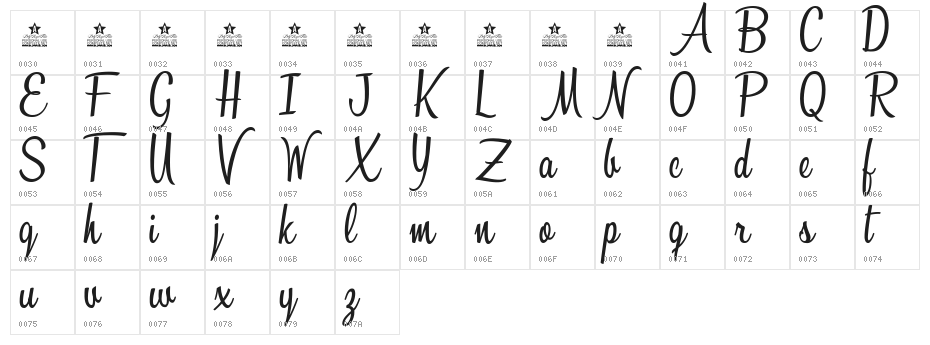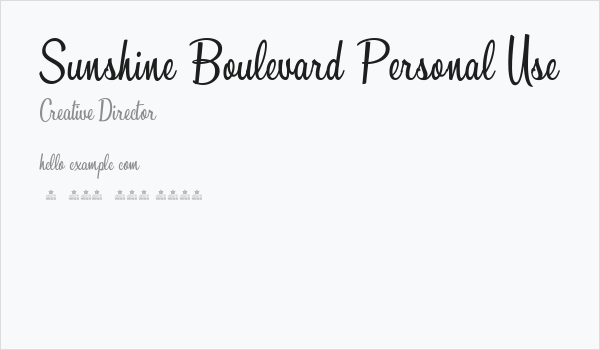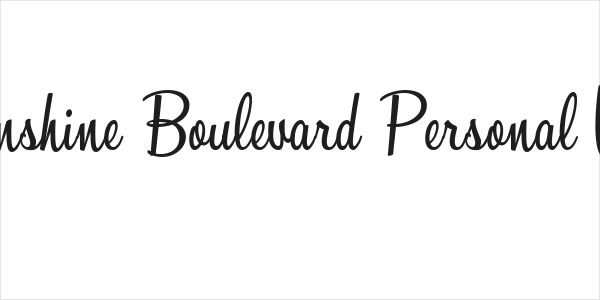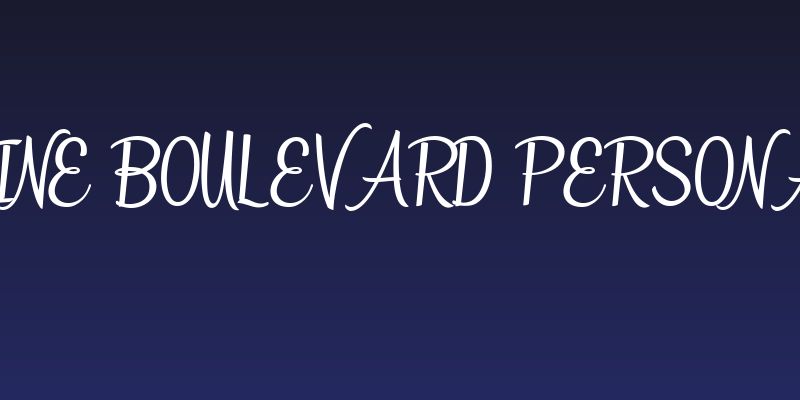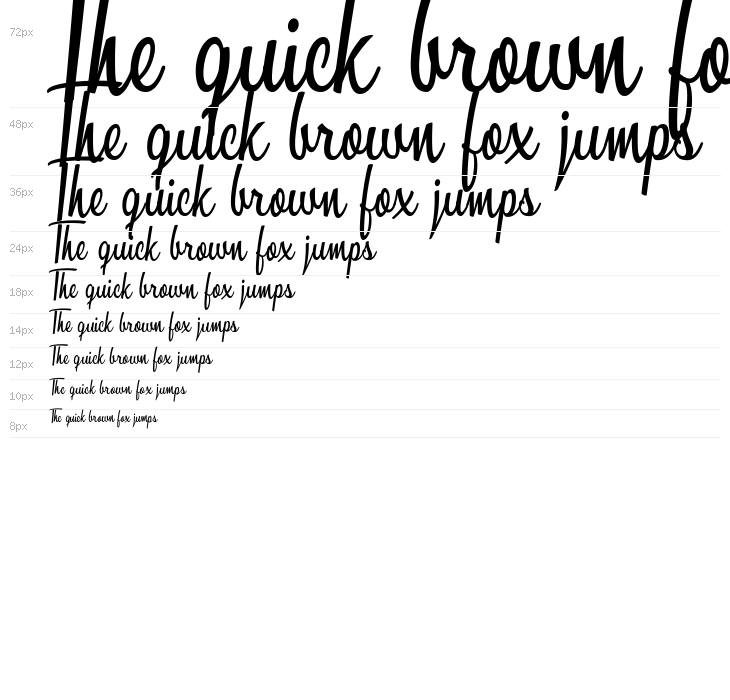
Sunshine Boulevard Personal Use Font
Sunshine Boulevard Personal Use Description
This font features a lively and flowing script style, characterized by its elegant curves and smooth connections between letters. The uppercase letters are tall and slender, with a slight slant that adds a sense of motion and grace. The lowercase letters are more compact, maintaining the same fluidity and elegance. The font includes numerals and a selection of special characters, all designed with the same attention to detail and stylistic consistency. Its overall appearance is both sophisticated and approachable, making it suitable for a variety of creative applications.
| Proposed Projects | Ideal for wedding invitations, greeting cards, branding projects, and elegant packaging designs. |